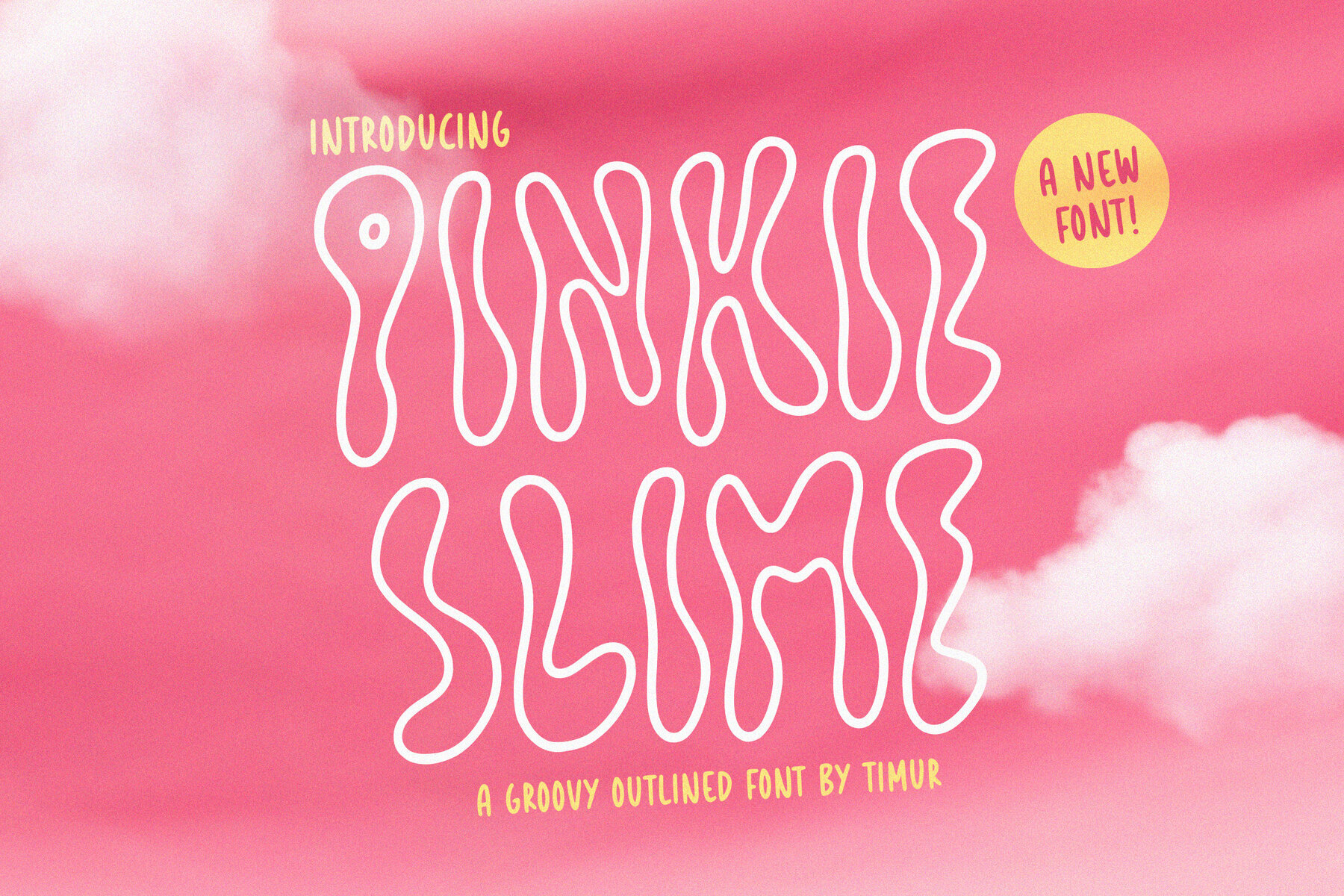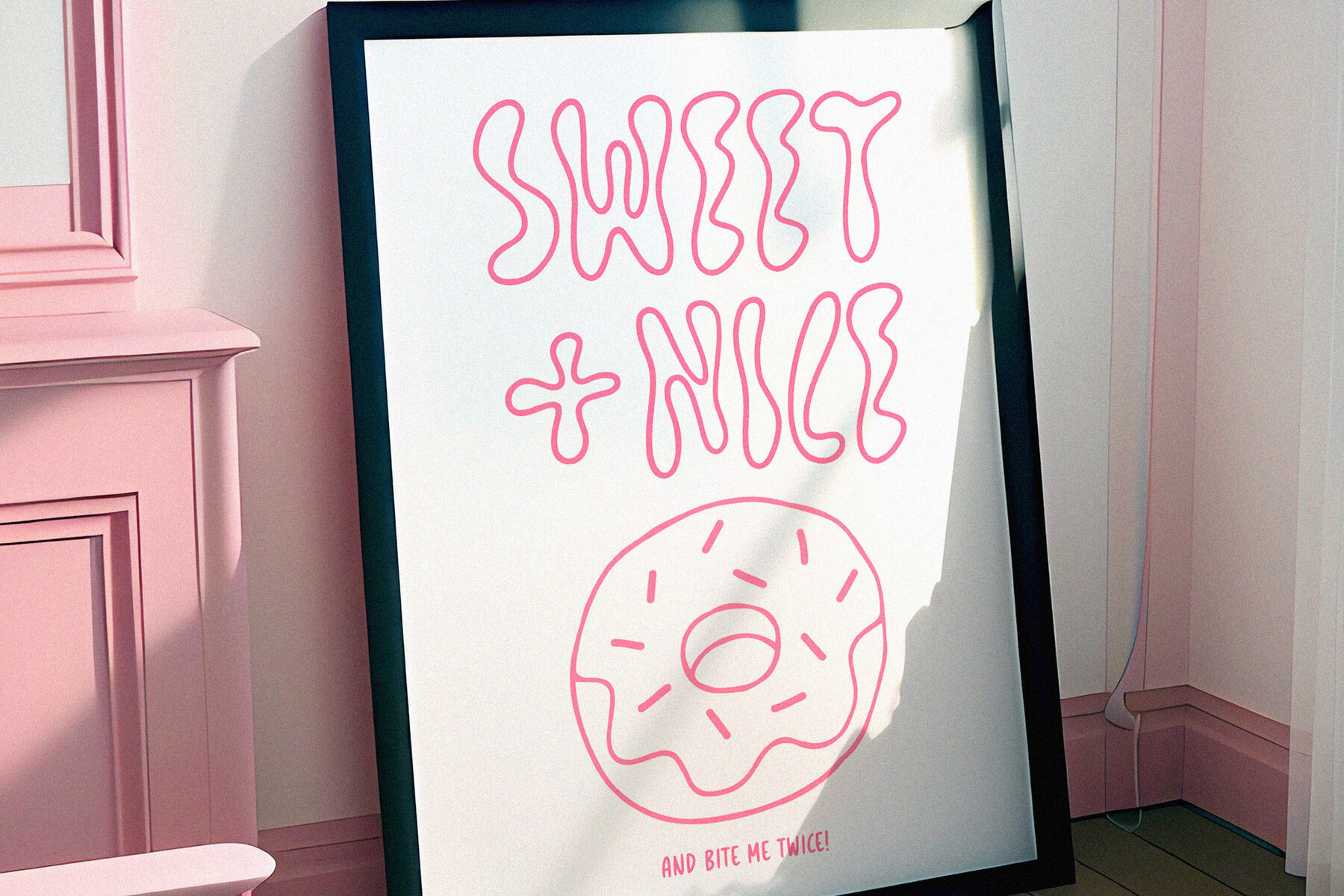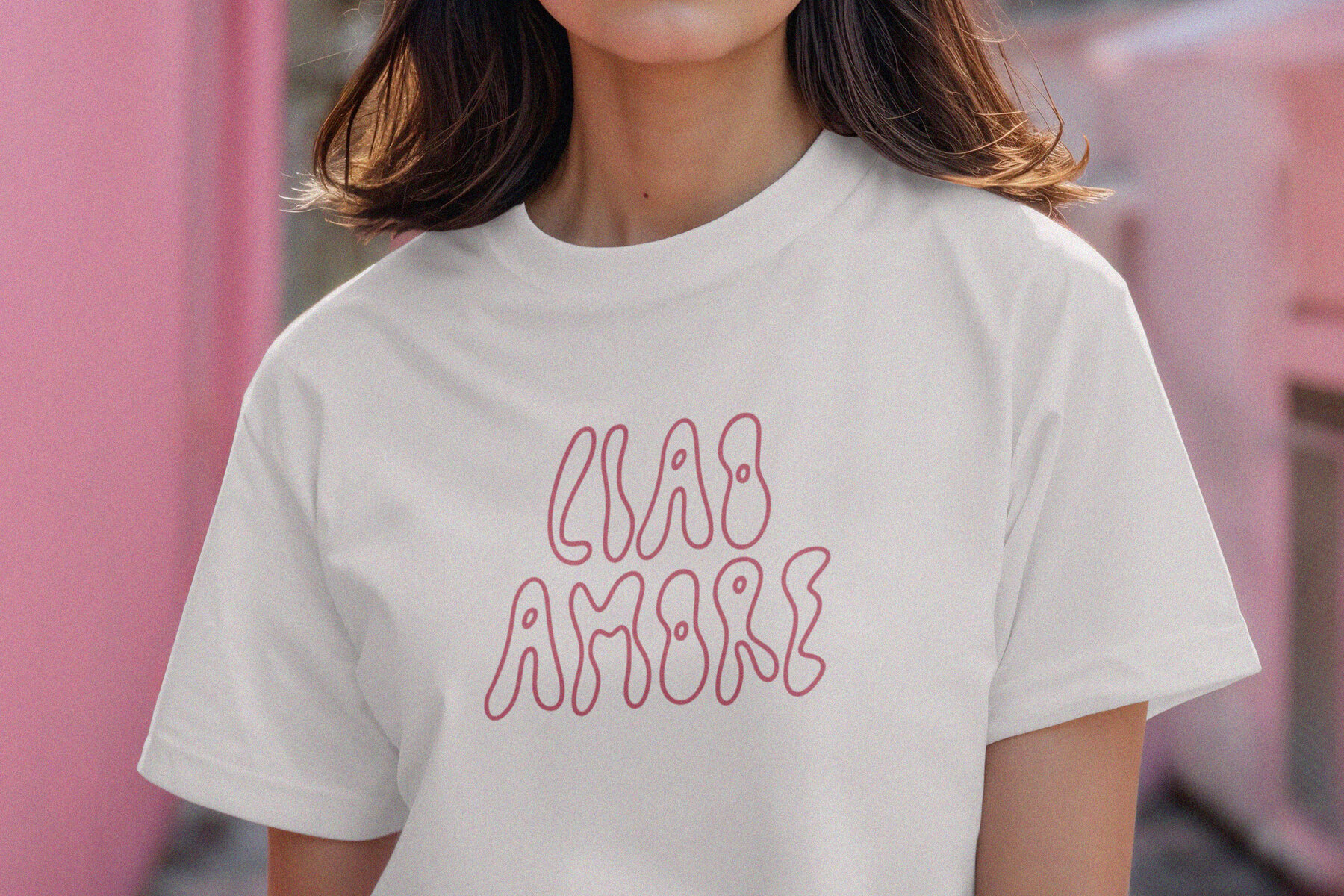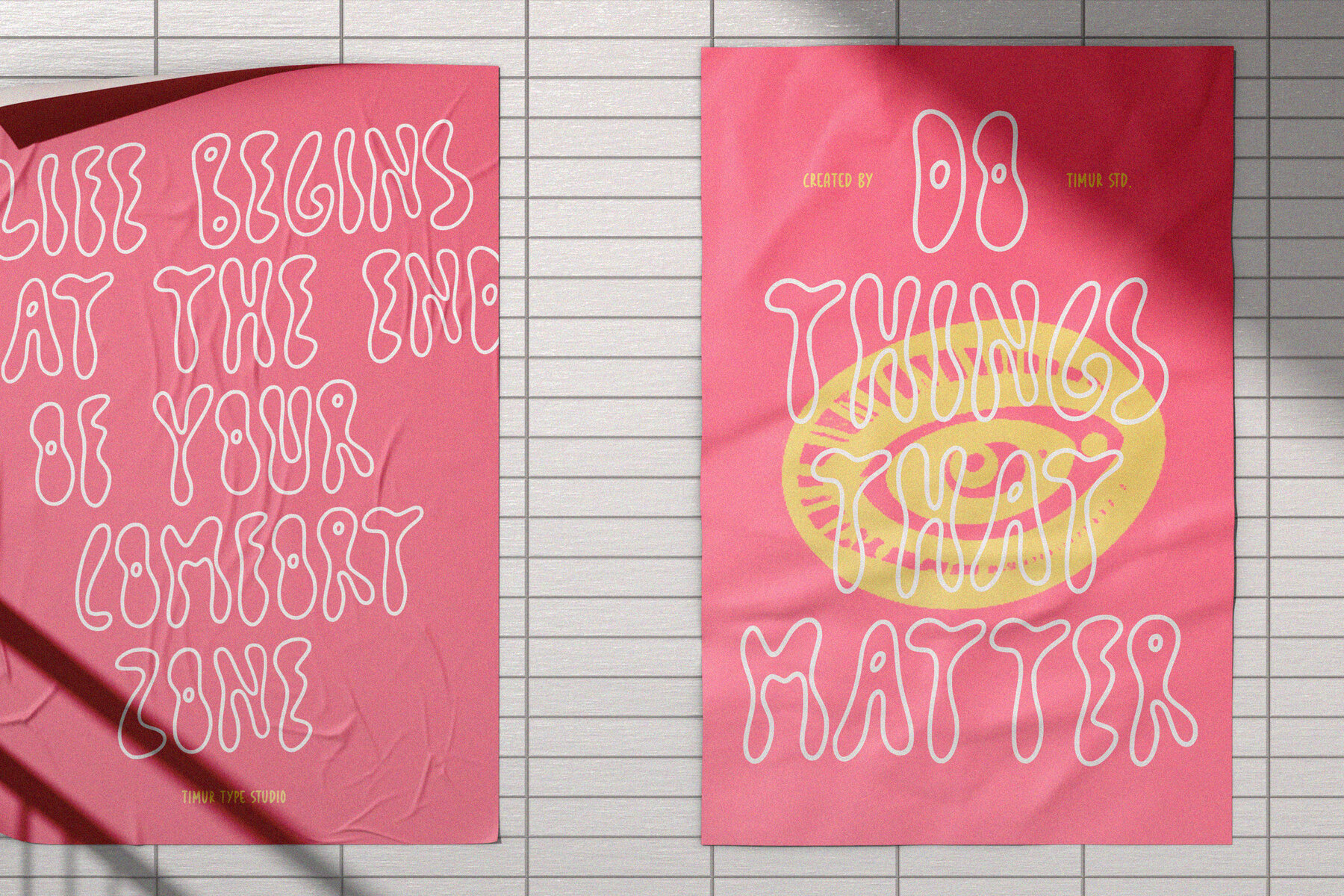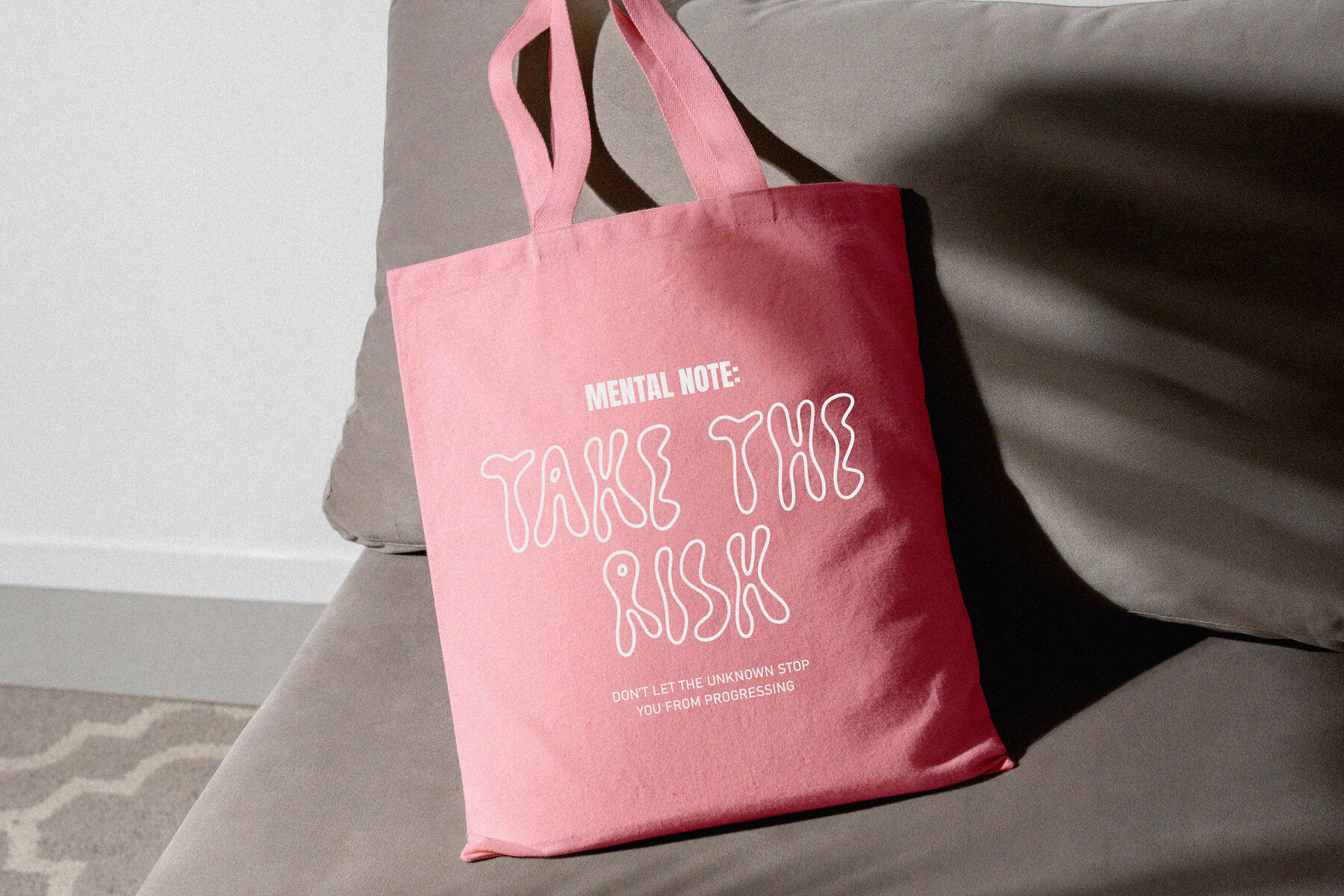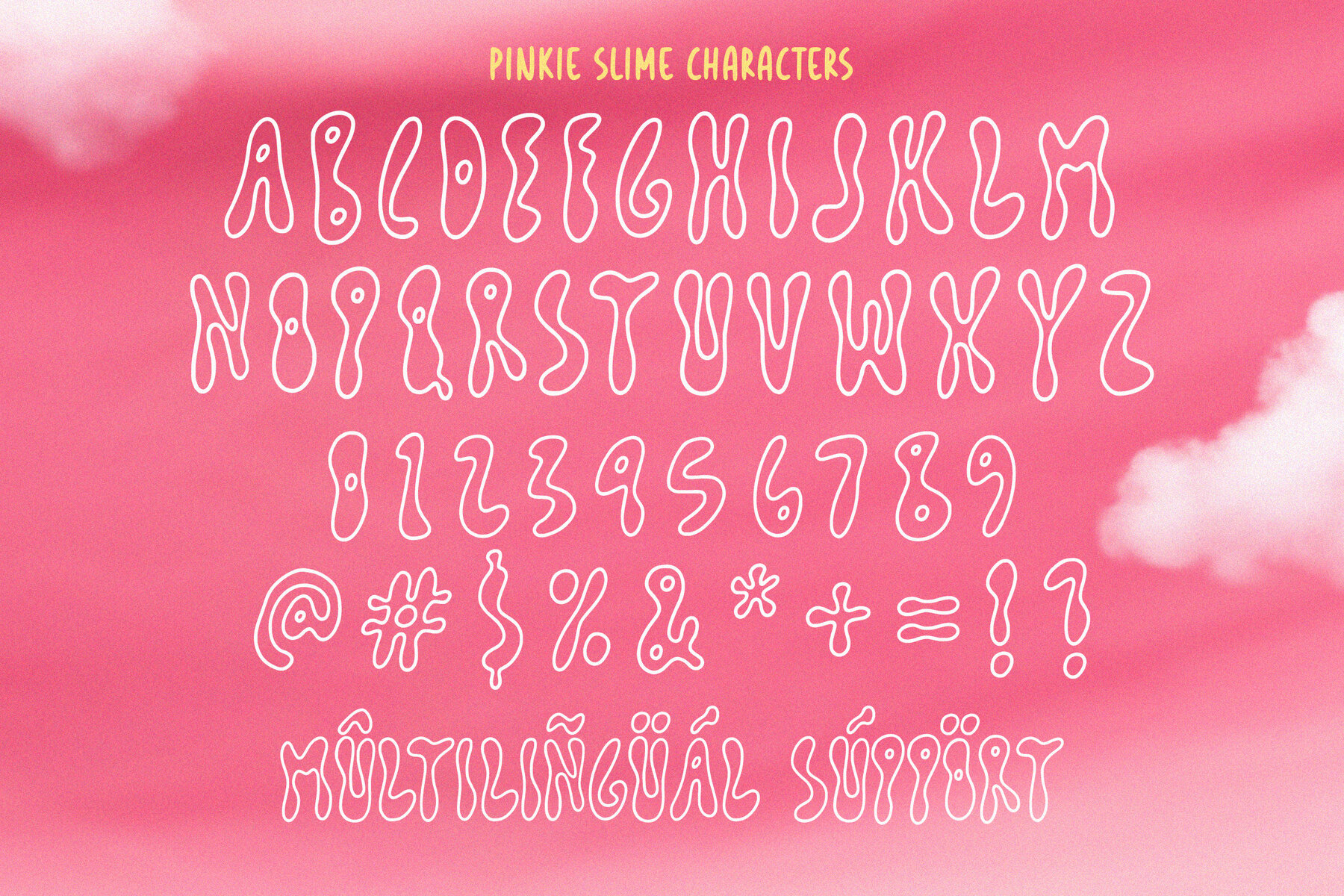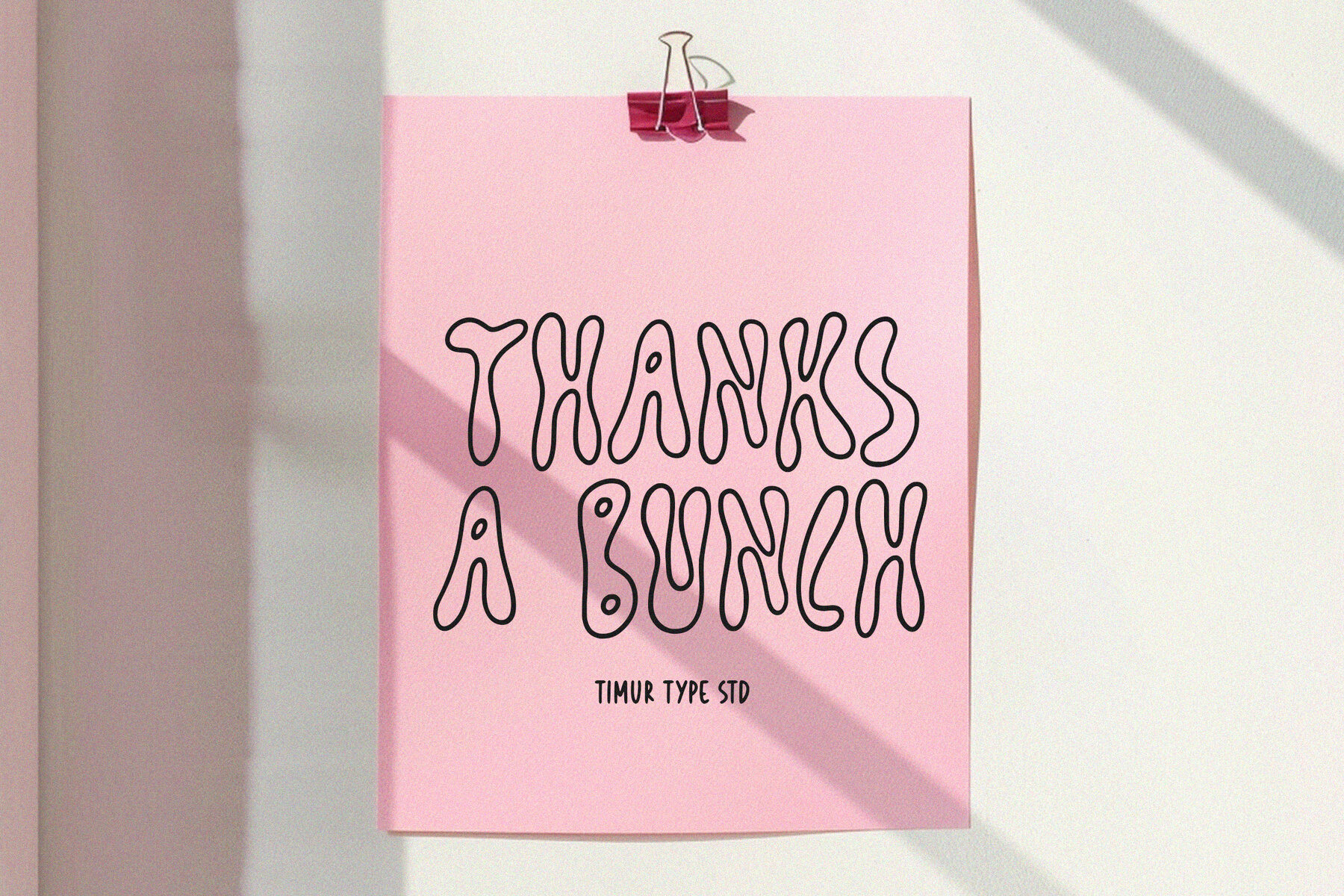
Pinkie Slime Font
Pinkie Slime
Pinkie Slime is a whimsical and energetic display font featuring bold, outlined characters that leap off the page. Inspired by playful aesthetics and vibrant colors, each letter is crafted to evoke a sense of fun and creativity. Ideal for headlines, posters, and branding, this groovy font injects lively charm into any design, making it perfect for projects that aim to stand out with a touch of animated flair.
In addition to its distinctive appearance, Pinkie Slime supports multilingualism, making it versatile for various audiences. This font will bring a unique and playful vibe to your designs, capturing attention and sparking imagination.